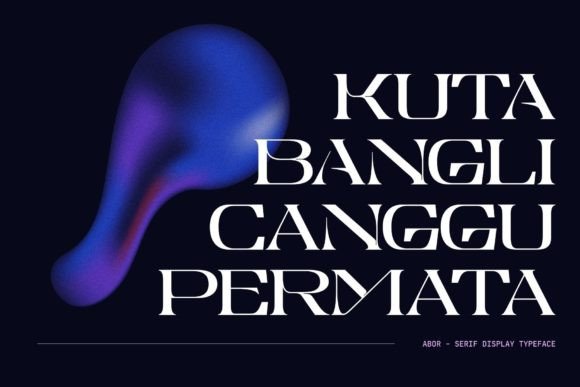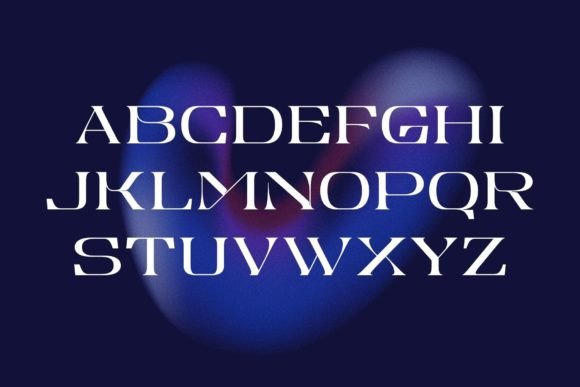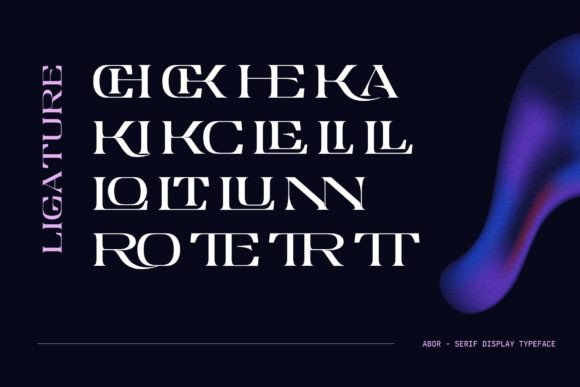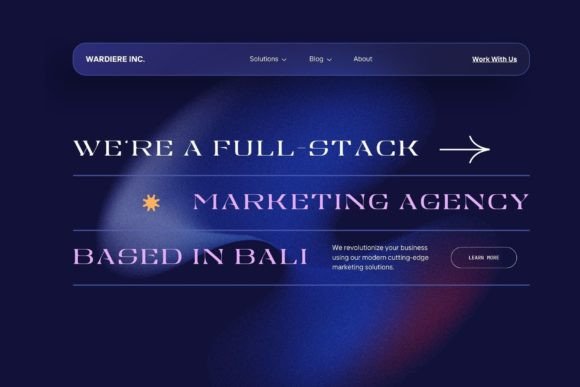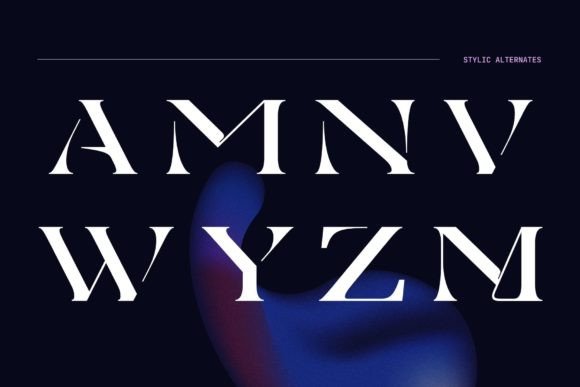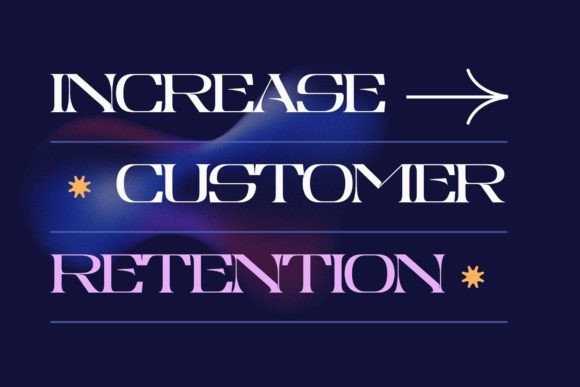
Abor Font: Elevate Your Designs with Timeless Elegance
In the world of typography, few fonts manage to convey the essence of sophistication and refinement as effortlessly as Abor. This exquisite serif font is a masterclass in elegant design, boasting meticulously crafted letterforms that exude precision, balance, and a deep sense of classic beauty. Whether you’re a designer seeking to elevate your branding, editorial, or packaging projects, or a crafter looking to add a touch of luxury to your creations, Abor is the perfect choice.
The Abor Advantage: Unparalleled Elegance and Versatility
Abor’s design is characterized by its thoughtful attention to detail and unwavering commitment to aesthetic excellence. Each letterform is carefully crafted to showcase a harmonious balance of curves and lines, resulting in a font that is both visually stunning and effortlessly readable. This versatility makes Abor an excellent choice for a wide range of applications, from high-end branding and editorial designs to luxurious packaging and beyond.
Crafting Timeless Beauty: The Design Philosophy Behind Abor
The Abor font is the result of a meticulous design process that prioritizes elegance, sophistication, and refinement. Its creator’s vision was to craft a font that would evoke a sense of classic beauty, while still feeling modern and relevant. To achieve this, every aspect of the font’s design was carefully considered, from the subtle nuances of letterform spacing to the precise calibration of stroke widths.
Applications for Abor: Where Elegance Meets Functionality
Abor’s versatility is one of its most compelling attributes, making it suitable for a diverse array of design projects. Some of the most effective applications for Abor include:
- High-End Branding: Abor’s sophisticated aesthetic makes it an excellent choice for luxury brands seeking to establish a refined and elegant visual identity.
- Editorial Designs: Abor’s exceptional readability and classic beauty make it perfect for editorial projects, such as magazines, newspapers, and books.
- Luxurious Packaging: Abor’s elegant design and precise craftsmanship make it an ideal choice for high-end packaging, adding a touch of sophistication to any product.
Why Choose Abor: The Benefits of Using this Sophisticated Serif Font
With so many fonts available, why choose Abor for your design projects? The answer lies in its unique combination of elegance, versatility, and attention to detail. By selecting Abor, you can:
- Elevate Your Brand: Abor’s sophisticated aesthetic helps to establish a refined and elegant visual identity, perfect for luxury brands.
- Enhance Readability: Abor’s meticulous design ensures exceptional readability, making it ideal for editorial projects and other applications where clear communication is essential.
- Add a Touch of Sophistication: Abor’s classic beauty and refined aesthetics bring a level of sophistication to any project, ensuring that your designs stand out from the crowd.
Conclusion: Discover the Timeless Elegance of Abor Font
In conclusion, Abor is a truly exceptional serif font that offers a unique combination of elegance, versatility, and attention to detail. Whether you’re a designer seeking to elevate your branding, editorial, or packaging projects, or a crafter looking to add a touch of luxury to your creations, Abor is the perfect choice. With its timeless beauty, precise craftsmanship, and sophisticated aesthetic, Abor is sure to become an essential part of your design toolkit.